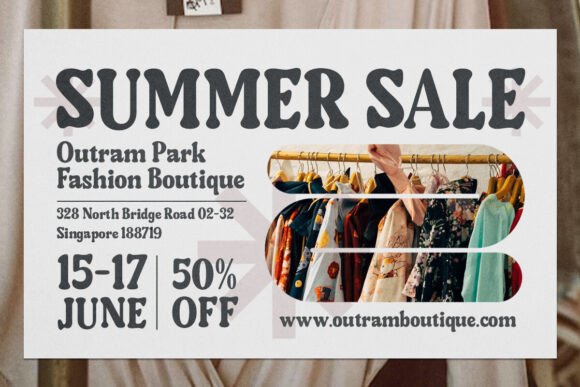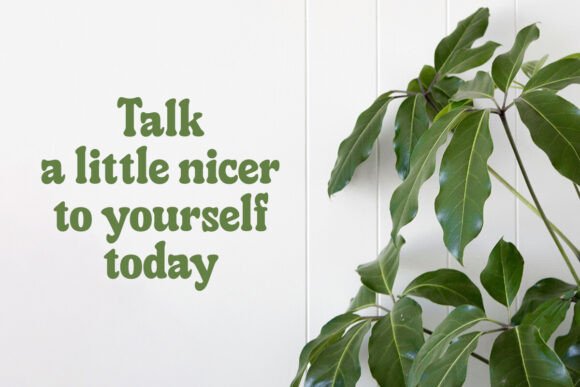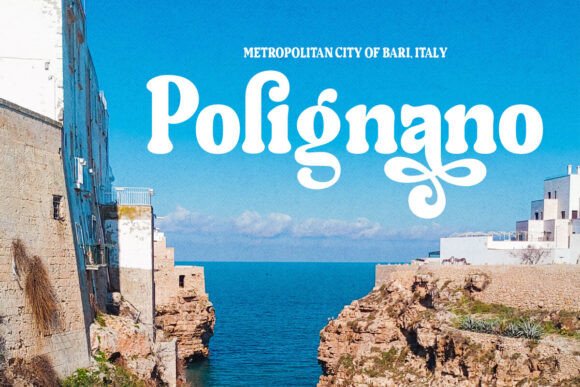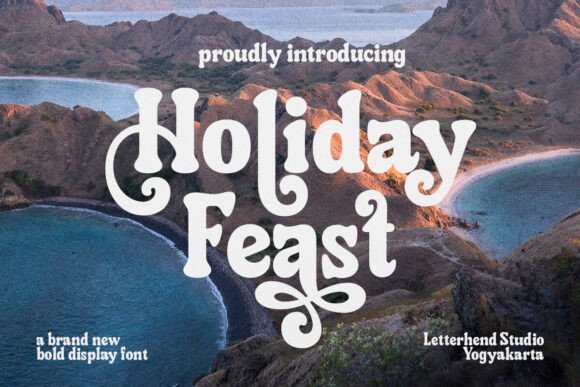
Introduction to Holiday Feast Font
Holiday Feast is a vibrant and charming display font that brings a festive touch to any design.
With bold, curvy letterforms and whimsical swashes, it exudes warmth, joy, and a nostalgic yet modern feel Perfect for holiday projects, branding, invitations, packaging, posters, and social media, this font adds personality and elegance to your work.
Holiday Feast Font offers exceptional quality and versatility, making it a valuable addition to your design toolkit. Whether you’re creating for personal projects or commercial use, Holiday Feast Font delivers professional results.